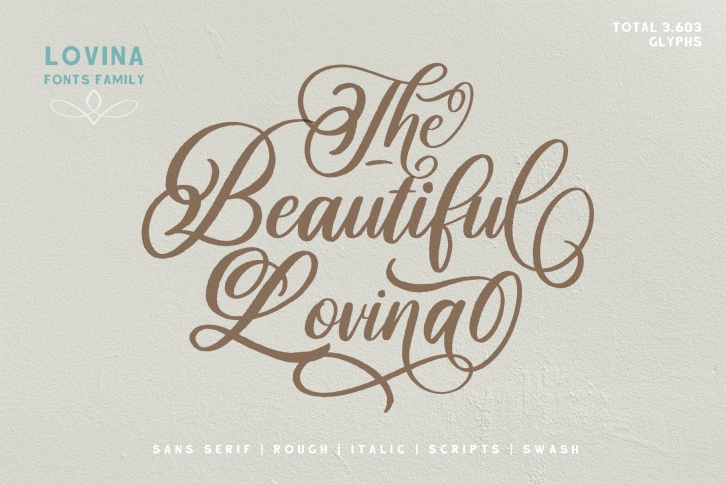
Lovina s Family is a great font that was designed by alit suarnegara. Imagine the amount of combinations you can create using this font! The archive is 19.17 MB and it was released on February 11, 2019. Lovina s Family looks beautiful on wedding invitations, greeting cards, logos, posters, labels, t-shirt designs, logos, business cards and is perfect for use in ink or watercolor works, fashion, magazines, packaging and food menus, children's books and more!